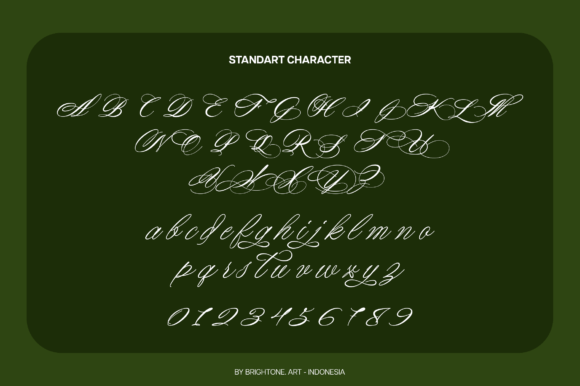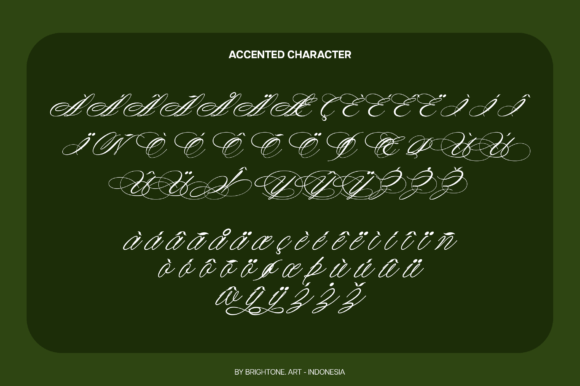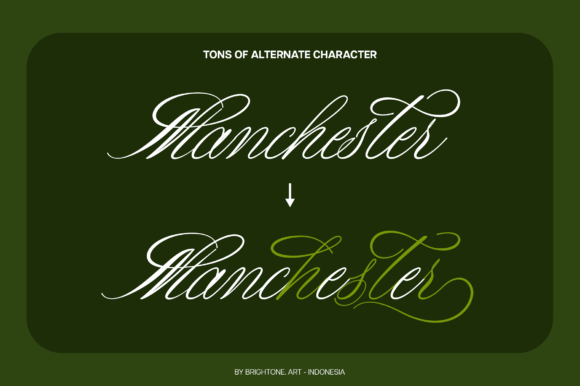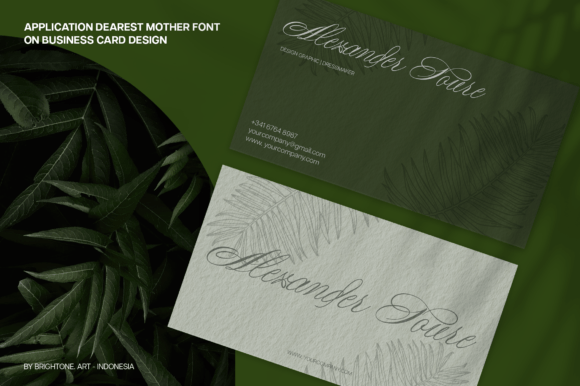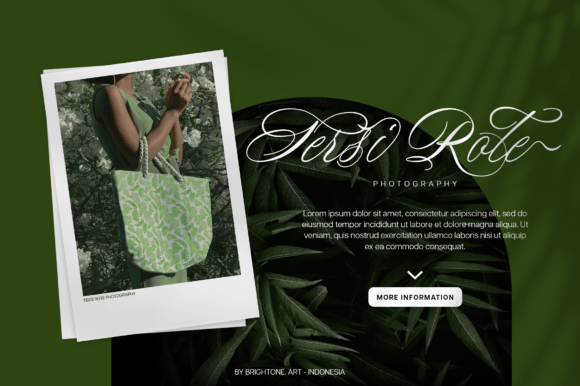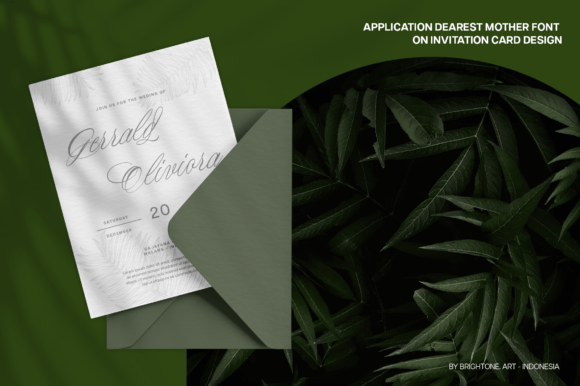
Introducing Dearest Mother Font: The Elegant Script Font for Your Creative Projects
Are you a designer or crafter looking for a font that exudes elegance and sophistication? Look no further than Dearest Mother Font, a stylish and incredibly elegant script font that is perfect for a variety of creative projects. In this article, we’ll take a closer look at Dearest Mother Font and explore its features, uses, and benefits.
What is Dearest Mother Font?
Dearest Mother Font is a beautiful script font that is designed to add a touch of elegance and sophistication to your designs. Its flowing lines, intricate details, and classic style make it perfect for projects that require a handwritten touch. Whether you’re creating wedding invitations, thank you cards, quotes, greeting cards, logos, business cards, or any other design that needs a personal touch, Dearest Mother Font is the perfect choice.
Features of Dearest Mother Font
Dearest Mother Font has several features that make it stand out from other script fonts. Some of its key features include:
- Elegant and sophisticated design: Dearest Mother Font has a classic and timeless design that is perfect for projects that require a touch of elegance and sophistication.
- Handwritten touch: The font has a handwritten feel that makes it perfect for projects that require a personal touch.
- Versatile: Dearest Mother Font can be used for a variety of projects, including wedding invitations, thank you cards, quotes, greeting cards, logos, business cards, and more.
- Easy to read: Despite its elegant design, Dearest Mother Font is easy to read, making it perfect for projects that require a clear and legible font.
Uses of Dearest Mother Font
Dearest Mother Font is a versatile font that can be used for a variety of projects. Some of the most popular uses of the font include:
- Wedding invitations: Dearest Mother Font is perfect for wedding invitations, as it adds a touch of elegance and sophistication to the design.
- Thank you cards: The font is also great for thank you cards, as it provides a personal and heartfelt touch.
- Quotes: Dearest Mother Font is perfect for quotes, as it adds a touch of elegance and sophistication to the text.
- Greeting cards: The font is also great for greeting cards, as it provides a personal and heartfelt touch.
- Logos: Dearest Mother Font can be used to create elegant and sophisticated logos that are perfect for businesses and brands.
- Business cards: The font is also great for business cards, as it provides a professional and elegant touch.
Benefits of Using Dearest Mother Font
There are several benefits to using Dearest Mother Font for your creative projects. Some of the benefits include:
- Elegance and sophistication: Dearest Mother Font adds a touch of elegance and sophistication to your designs, making them stand out from the crowd.
- Personal touch: The font provides a personal and heartfelt touch to your designs, making them more relatable and engaging.
- Versatility: Dearest Mother Font can be used for a variety of projects, making it a great addition to your font collection.
In conclusion, Dearest Mother Font is a stylish and incredibly elegant script font that is perfect for designers and crafters looking to add a touch of elegance and sophistication to their creative projects. Its flowing lines, intricate details, and classic style make it perfect for projects that require a handwritten touch. With its versatility, ease of use, and elegance, Dearest Mother Font is a great addition to any font collection.